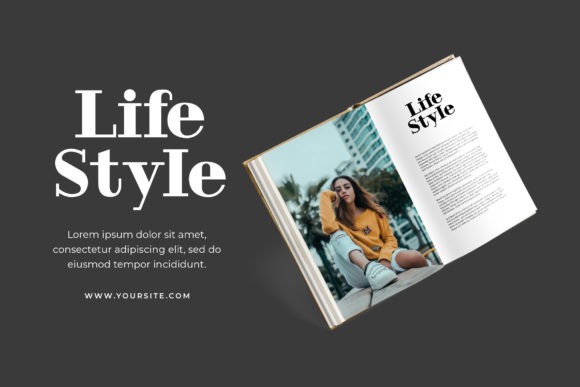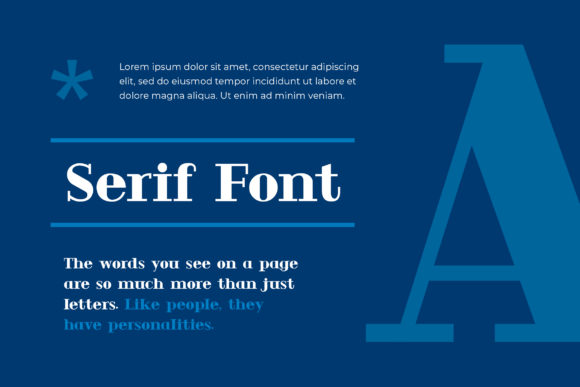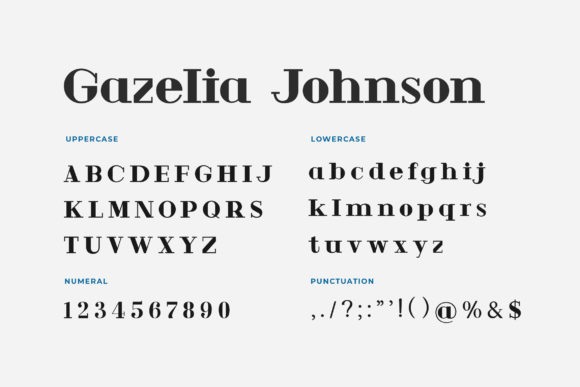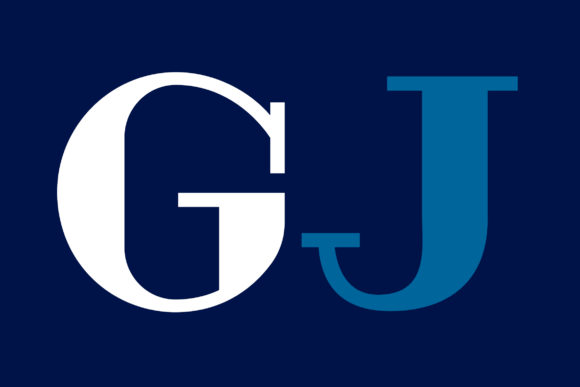
Introducing Gazelia Johnson Font: Elevate Your Designs with Elegance and Assertiveness
Gazelia Johnson is an elegant and assertive serif font that has been masterfully designed to become a true favorite among designers and crafters. With its unique blend of sophistication and confidence, this font has the potential to bring each of your creative ideas to the highest level. In this article, we’ll take a closer look at the Gazelia Johnson font, its features, and how it can elevate your designs.
The Art of Elegance and Assertiveness
Gazelia Johnson is a serif font that exudes elegance and sophistication. Its carefully crafted letterforms are designed to convey a sense of refinement and luxury, making it perfect for high-end branding, advertising, and editorial design. The font’s assertive nature ensures that your message is delivered with confidence and clarity, making it ideal for headlines, titles, and other display text.
Key Features of Gazelia Johnson Font
- Elegant Serif Design: Gazelia Johnson features a classic serif design with a modern twist, making it perfect for a wide range of design applications.
- Assertive and Confident: The font’s assertive nature ensures that your message is delivered with confidence and clarity.
- Highly Legible: Gazelia Johnson is designed to be highly legible, even at small font sizes, making it perfect for body text and captions.
- Versatile: The font is suitable for a wide range of design applications, including branding, advertising, editorial design, and more.
Why Choose Gazelia Johnson Font?
Gazelia Johnson font offers a unique combination of elegance and assertiveness that sets it apart from other serif fonts. Here are some reasons why you should consider using Gazelia Johnson in your designs:
- Stand Out from the Crowd: With Gazelia Johnson, you can create designs that stand out from the crowd and make a lasting impression on your audience.
- Convey Luxury and Sophistication: The font’s elegant design makes it perfect for conveying luxury and sophistication in your designs.
- Easy to Read: Gazelia Johnson is highly legible, making it easy for your audience to read and understand your message.
- Flexible: The font is suitable for a wide range of design applications, from print to digital media.
Tips for Using Gazelia Johnson Font
Here are some tips for using Gazelia Johnson font in your designs:
- Use it for Headlines and Titles: Gazelia Johnson is perfect for headlines and titles, where its assertive nature can make a big impact.
- Pair it with Sans-Serif Fonts: Pair Gazelia Johnson with sans-serif fonts for a classic and elegant look.
- Experiment with Font Sizes: Experiment with different font sizes to create visual hierarchy and emphasis in your designs.
- Use it for Branding and Advertising: Gazelia Johnson is perfect for branding and advertising, where its elegant and assertive design can help you stand out from the competition.
Gazelia Johnson font is an elegant and assertive serif font that has the potential to elevate your designs to new heights. With its unique blend of sophistication and confidence, this font is perfect for designers and crafters who want to create high-end designs that stand out from the crowd. Whether you’re working on a branding project, advertising campaign, or editorial design, Gazelia Johnson is a versatile font that can help you achieve your creative goals.